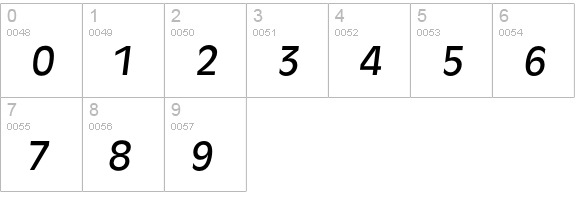
Ravenna-MediumIta Font Details
Ravenna-MediumIta is a beautiful and elegant font that exudes sophistication and charm. With its medium weight and italic style, this font is perfect for adding a touch of class to any design project. Whether you are creating a logo, website, or print materials, Ravenna-MediumIta will instantly elevate your design and make a lasting impression. The flowing curves and graceful lines of Ravenna-MediumIta create a sense of harmony and balance, making it a versatile choice for both formal and informal settings. Its legibility and readability make it ideal for body text, while its distinct and unique letterforms add a touch of individuality to headlines and titles. What sets Ravenna-MediumIta apart is that it is not only a high-quality font, but it is also freely available to download at FontsMarket.com. This means that you can use this font in your personal and commercial projects without any restrictions or limitations. Its free availability allows designers and creatives to explore their creativity without worrying about licensing fees or restrictions. With Ravenna-MediumIta, you can bring a touch of elegance and sophistication to all your design projects. So go ahead and download this stunning font from FontsMarket.com and start creating beautiful and impactful designs today.